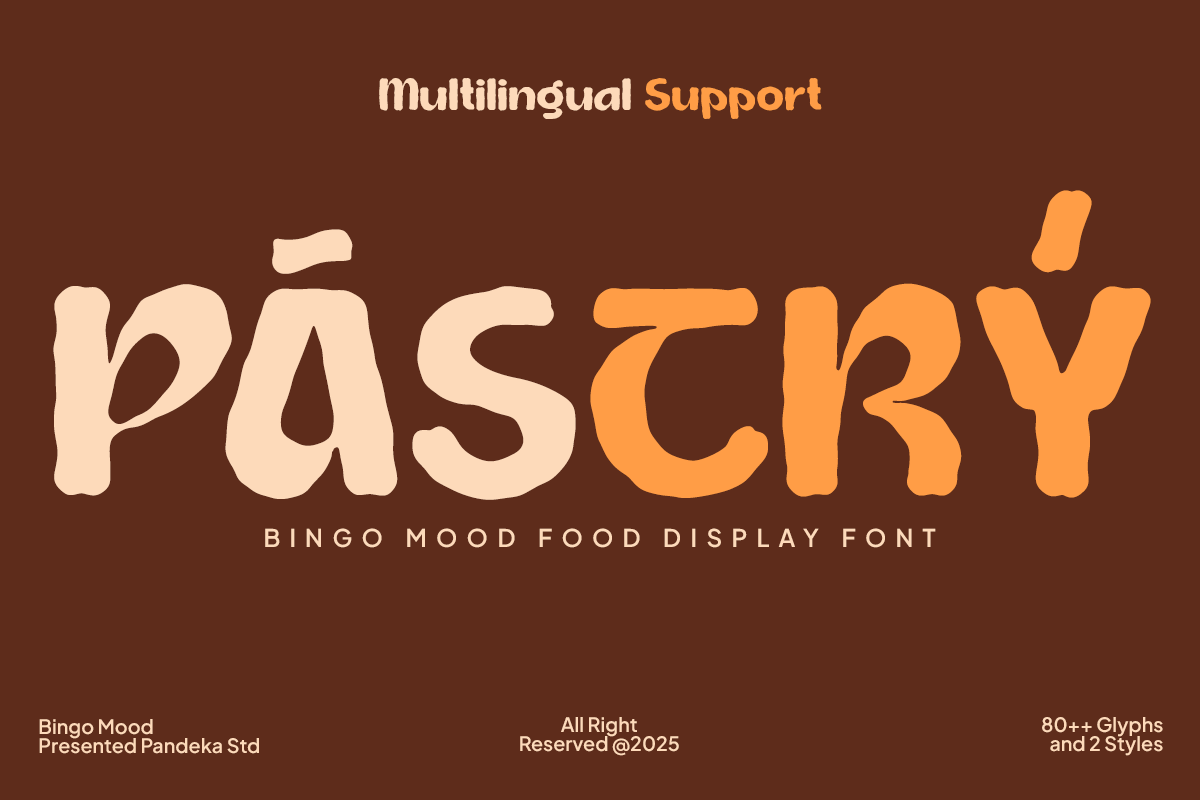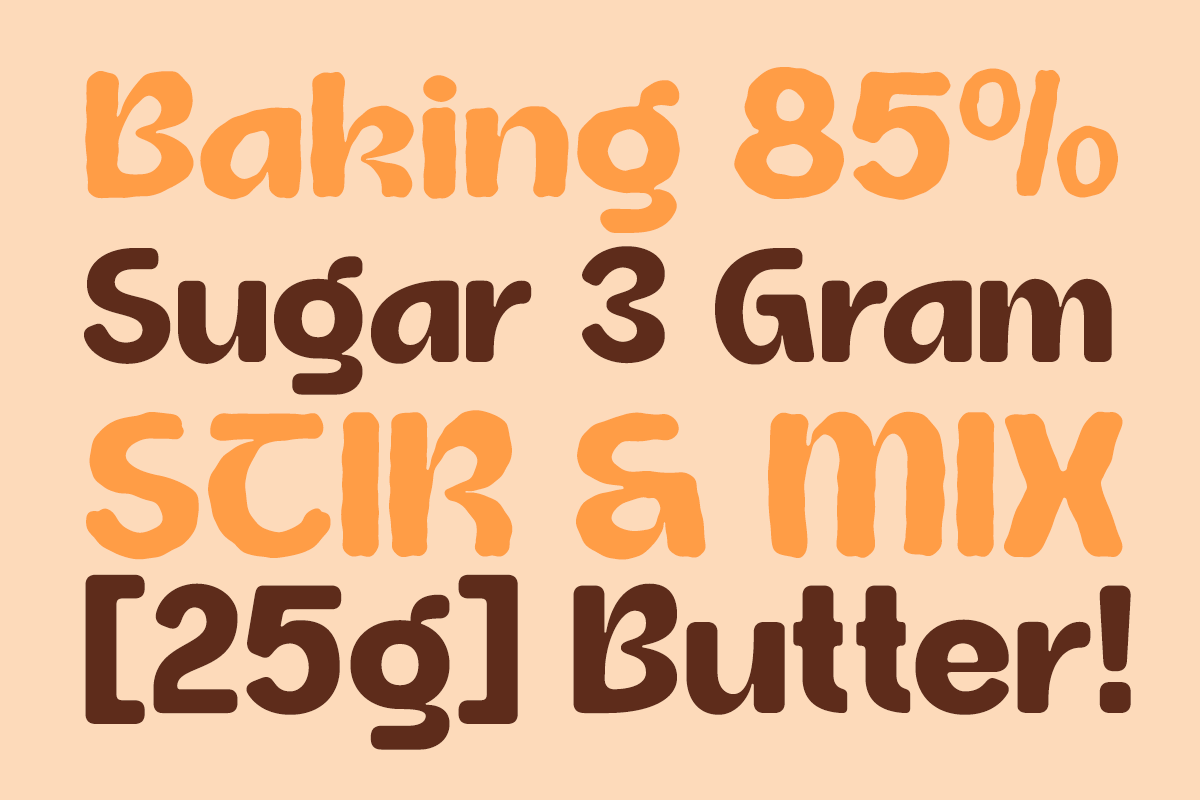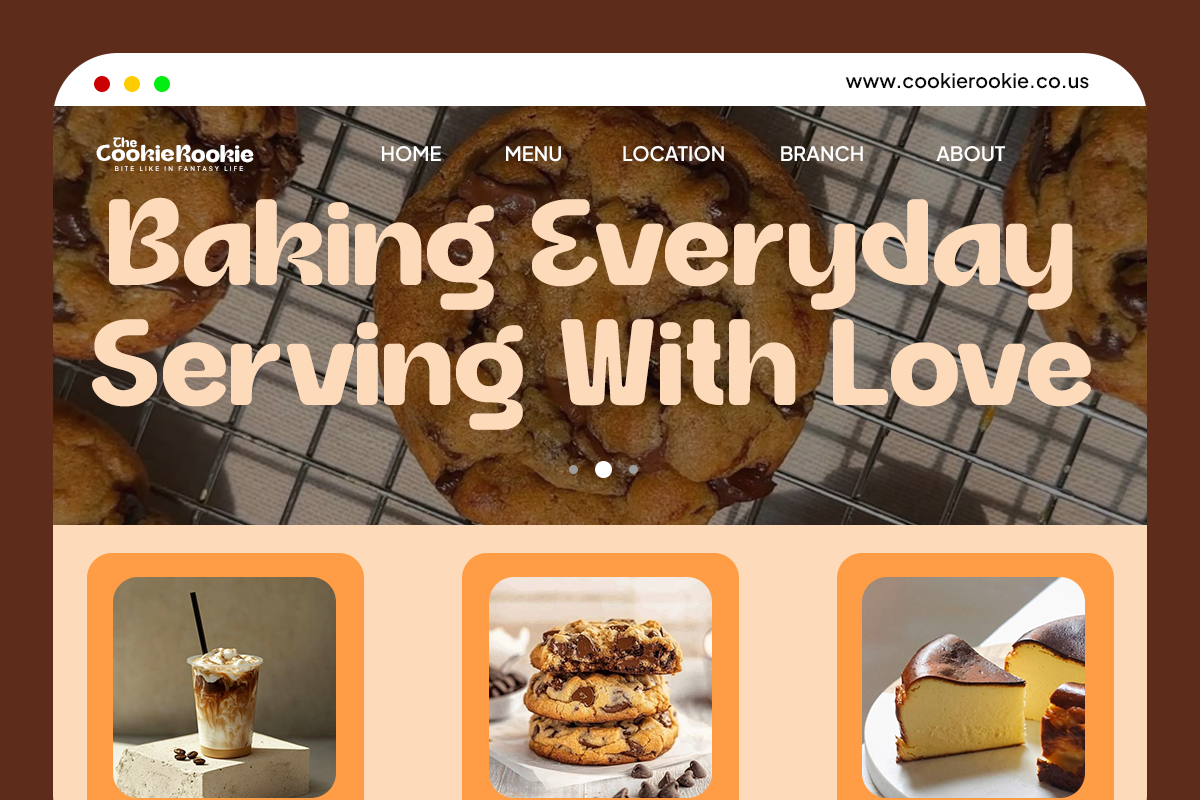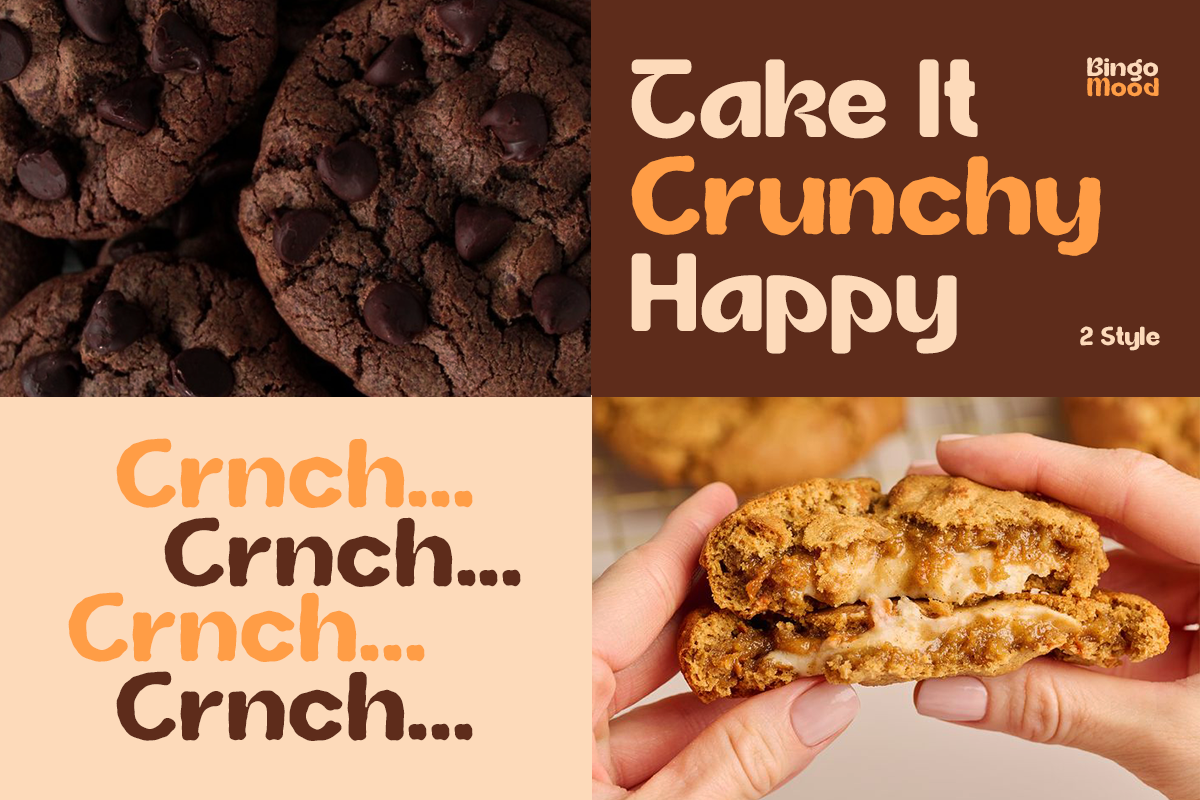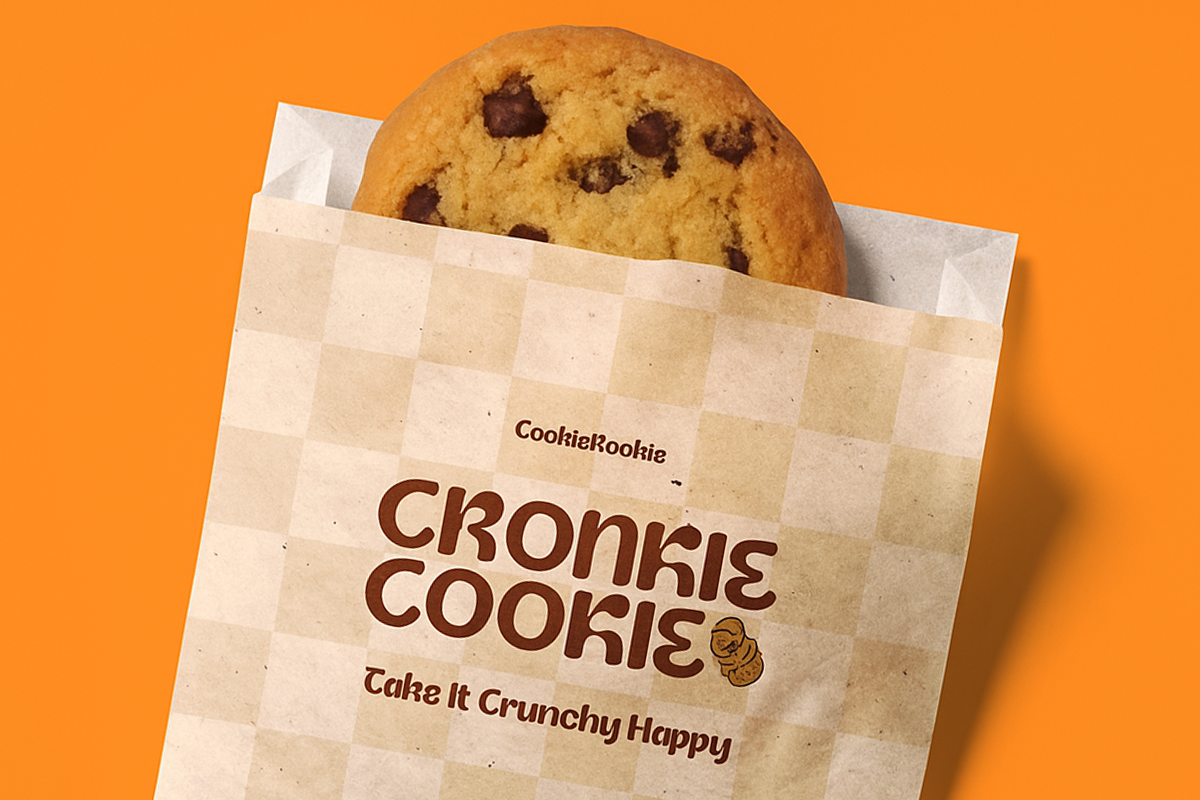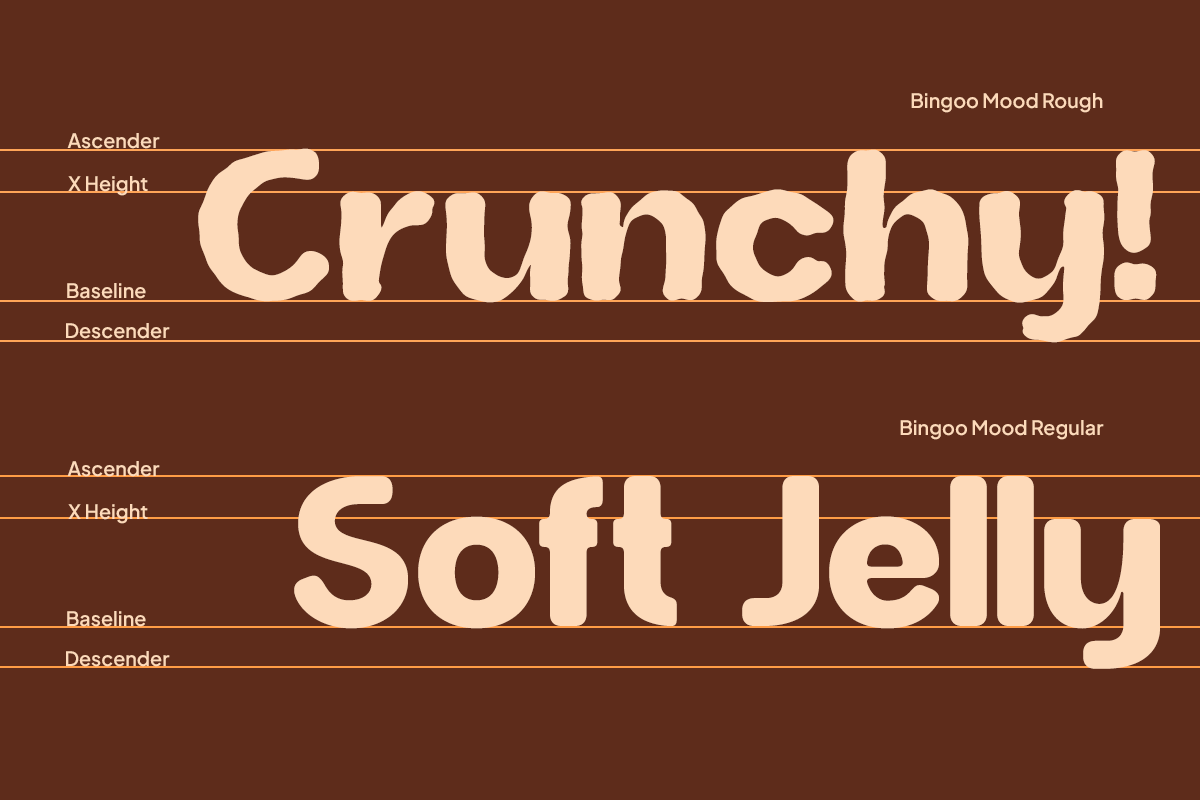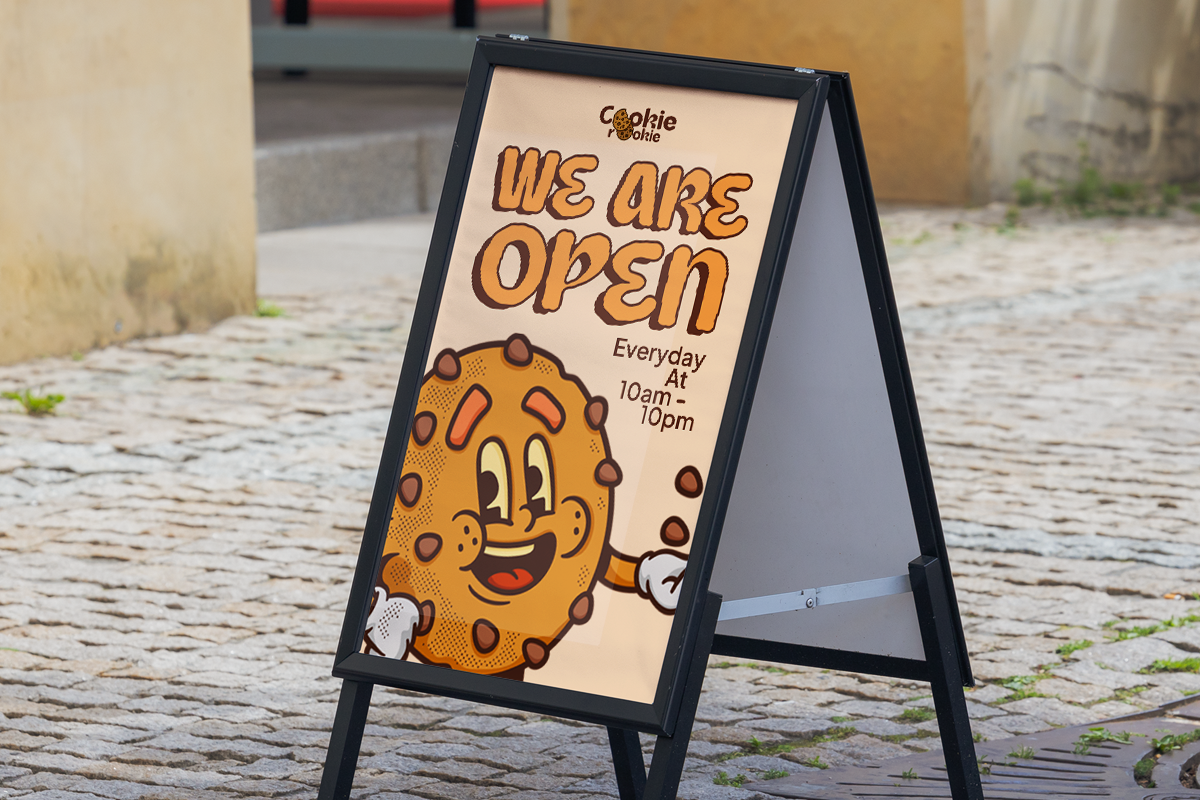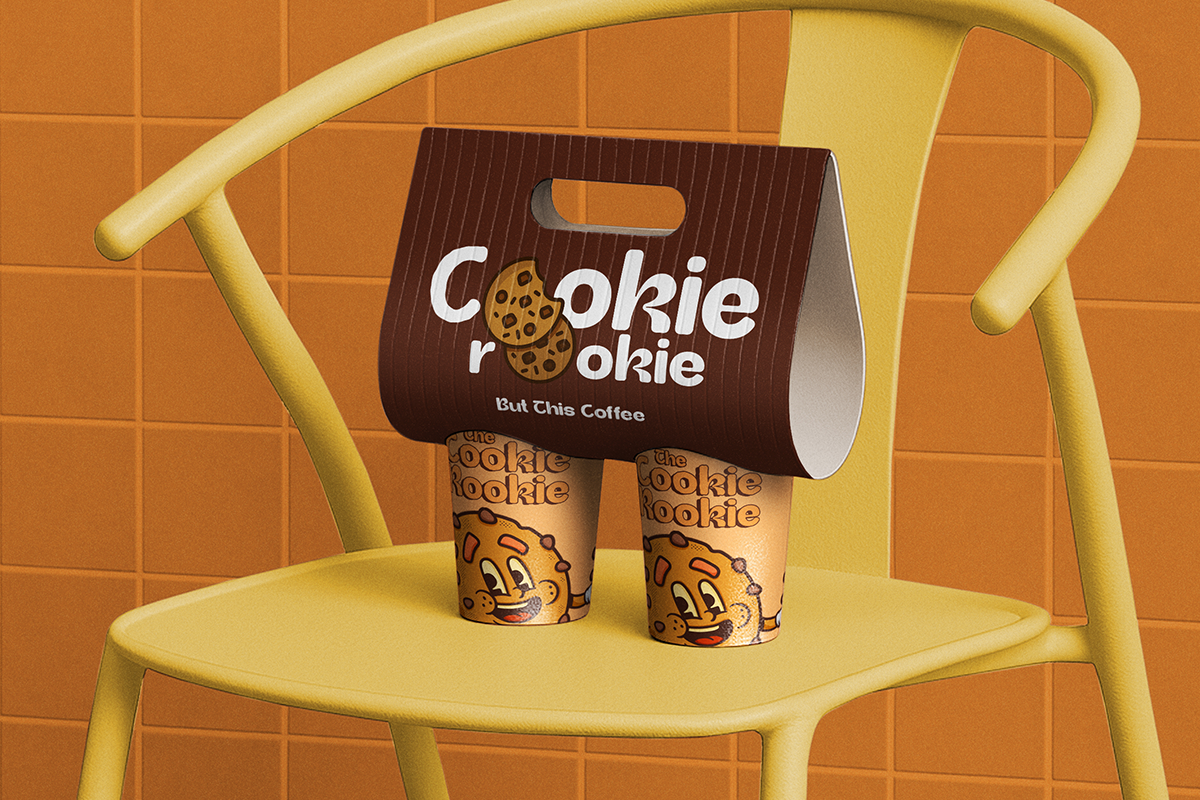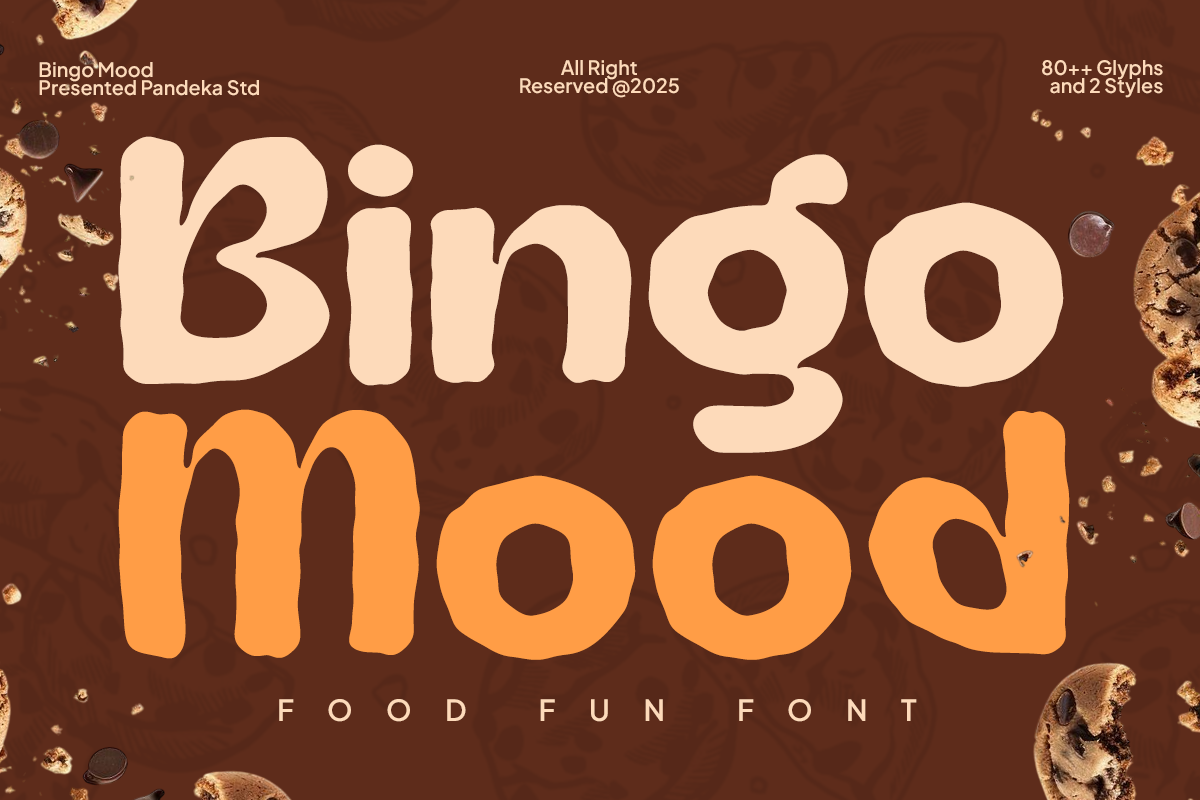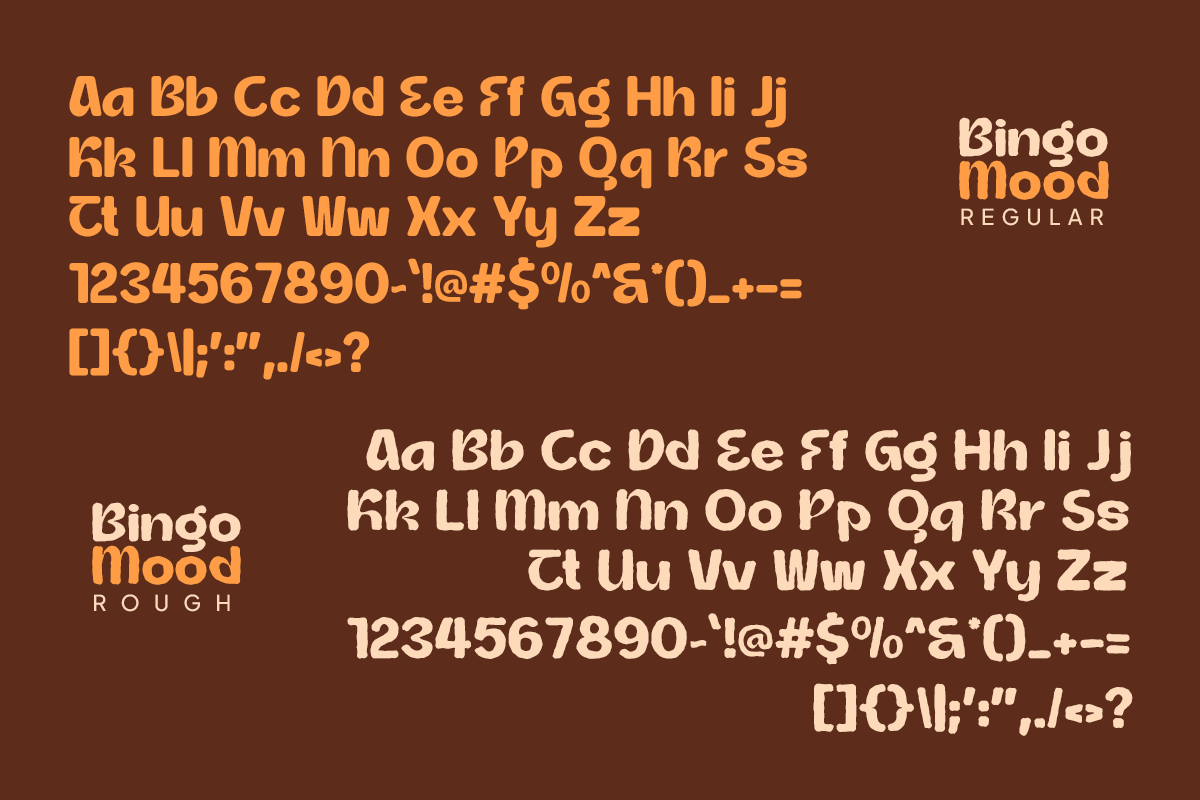
Bingo Mood - Food Fun Font
Bingo Mood is a playful and tasty display font that brings warmth, happiness, and fun to your food-themed designs. Inspired by the soft and crunchy textures of cookies and bakery goods, this typeface is perfect for packaging, cafe branding, social media posts, and fun product logos.
It comes in 2 styles: Regular and Rough, giving you flexibility to mix smooth and textured looks for extra flavor. Whether you’re designing for desserts, bakeries, or cozy coffee shops, Bingo Mood adds a delightful personality that makes your design stand out.
This font includes uppercase, lowercase, numbers, punctuation, and multilingual support — making it ready for global creative projects.
- 2 Style: Regular and Rough
- Full Character Set: Uppercase, lowercase, numbers, symbols, and punctuation